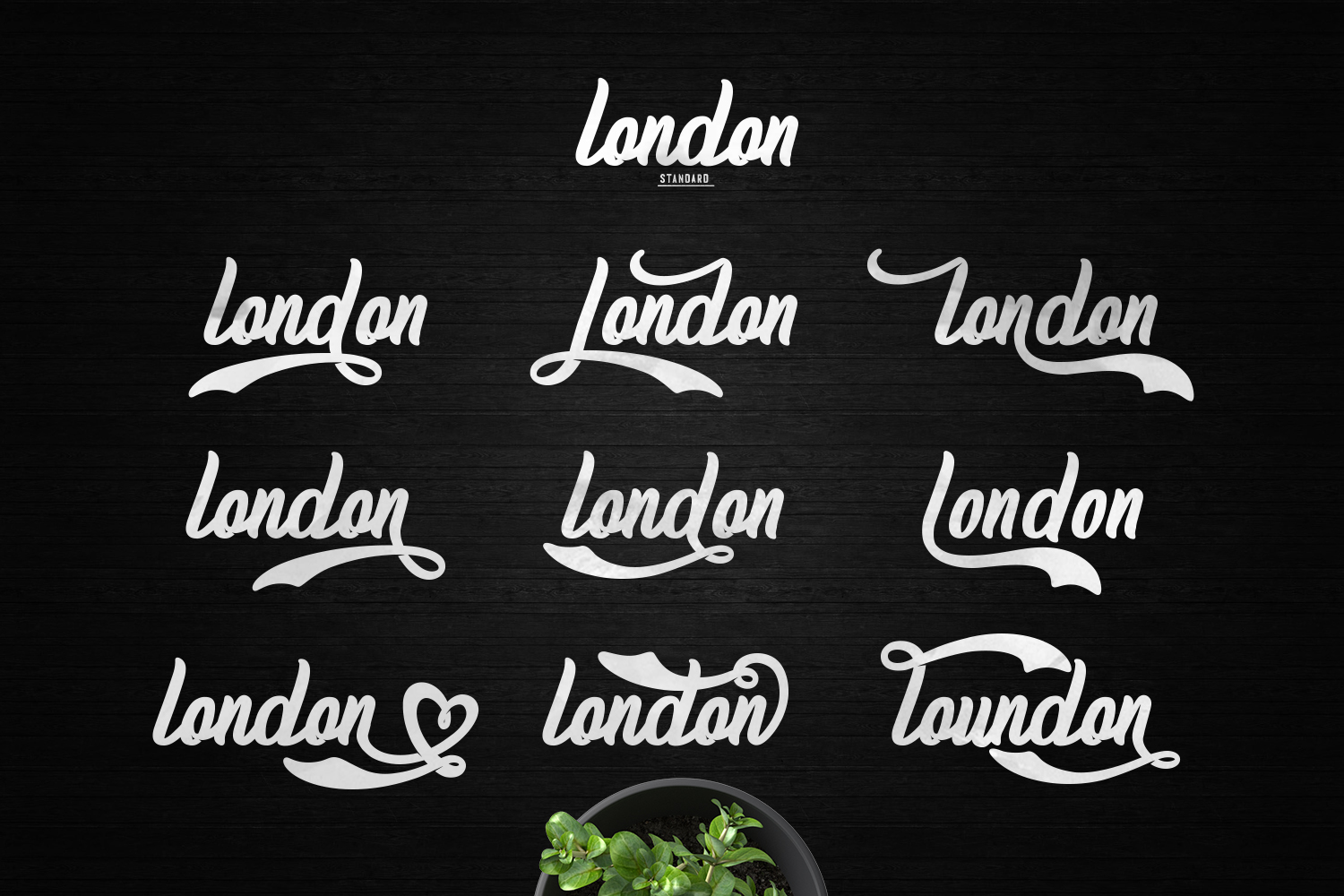
Homerun Script Font
Homerun typeface font with three alternative reguler, stamp and gradient. Homerun perfect for poster design, book covers, merchandise, fashion campaigns, newsletters, branding, advertising, magazines, greeting cards, album covers, and quote designs and more.